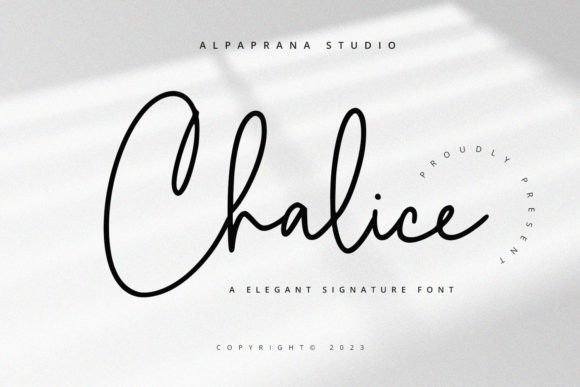
Introducing Chalice Font: Elevate Your Design with a Signature Style
In the world of design, fonts play a crucial role in conveying messages, evoking emotions, and creating a lasting impression. Among the myriad of fonts available, Chalice stands out as a signature font that embodies a natural and modern feel. This versatile font is perfect for a wide range of design projects, from branding and logo design to packaging and advertising materials. In this article, we’ll delve into the features and benefits of Chalice Font and explore its various applications.
What is Chalice Font?
Chalice is a carefully crafted font that boasts a unique blend of natural elegance and modern sophistication. Its distinctive style makes it an excellent choice for designers seeking to add a personal touch to their work. Whether you’re looking to create a stunning logo, an eye-catching poster, or a captivating book cover, Chalice Font is the perfect companion for your creative journey.
Key Features of Chalice Font
- Natural and Modern Feel: Chalice Font strikes the perfect balance between natural elegance and modern sophistication, making it suitable for a wide range of design applications.
- Versatility: This font can be used for various design projects, including branding, logo design, lettering, logotype, clothing, posters, magazines, packaging, and more.
- Signature Style: Chalice Font has a unique and distinctive style that sets it apart from other fonts, making it perfect for designers seeking to create a lasting impression.
Applications of Chalice Font
Chalice Font is an incredibly versatile font that can be used in a variety of design projects. Here are some of the ways you can utilize this exceptional font:
Branding and Logo Design
When it comes to branding and logo design, Chalice Font can help you create a memorable and impactful visual identity. Its natural and modern feel makes it perfect for businesses seeking to establish a strong and recognizable brand image.
Lettering and Logotype
Chalice Font is ideal for lettering and logotype projects, allowing you to create stunning and unique text-based designs that capture the essence of your brand or message.
Clothing and Fashion
In the world of fashion, Chalice Font can be used to create eye-catching clothing designs, from t-shirts to hoodies, that make a statement and leave a lasting impression.
Posters and Advertising Materials
Whether you’re designing a poster, flyer, or brochure, Chalice Font can help you create visually stunning advertising materials that grab attention and communicate your message effectively.
Packaging and Shopping Bags
Chalice Font can also be used to create beautiful and functional packaging designs, including shopping bags, that reflect your brand’s personality and values.
Book Covers and Photography
For authors and photographers, Chalice Font offers a unique opportunity to create captivating book covers and promotional materials that showcase your work in a stunning and professional light.
Special Events and Conferences
Chalice Font is also perfect for designing materials for special events, conferences, and trade shows, allowing you to create memorable and impactful visual identities that leave a lasting impression on attendees.
Benefits of Using Chalice Font
By incorporating Chalice Font into your design projects, you can enjoy a range of benefits, including:
- Unique and Memorable Designs: Chalice Font’s distinctive style ensures that your designs stand out from the crowd and leave a lasting impression.
- Versatility and Flexibility: This font can be used in a wide range of design applications, making it a valuable addition to your design toolkit.
- Professional and Sophisticated Look: Chalice Font’s natural and modern feel gives your designs a professional and sophisticated look that elevates your brand or message.
In conclusion, Chalice Font is a signature font that offers a unique blend of natural elegance and modern sophistication. Its versatility, distinctive style, and range of applications make it an excellent choice for designers seeking to create memorable and impactful designs. Whether you’re working on branding, logo design, packaging, or advertising materials, Chalice Font is the perfect companion for your creative journey.
So why wait? Discover the power of Chalice Font and elevate your designs to new heights. With its help, you can create stunning visual identities that leave a lasting impression and set your brand or message apart from the competition.